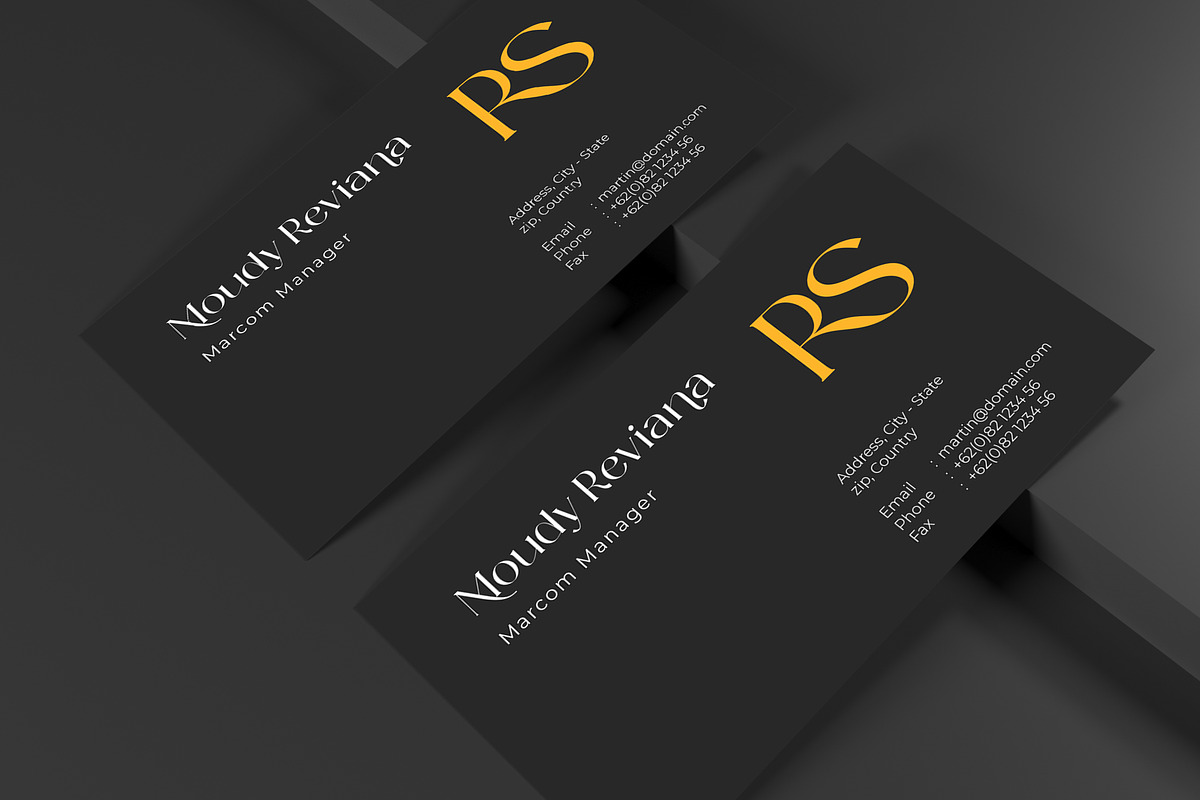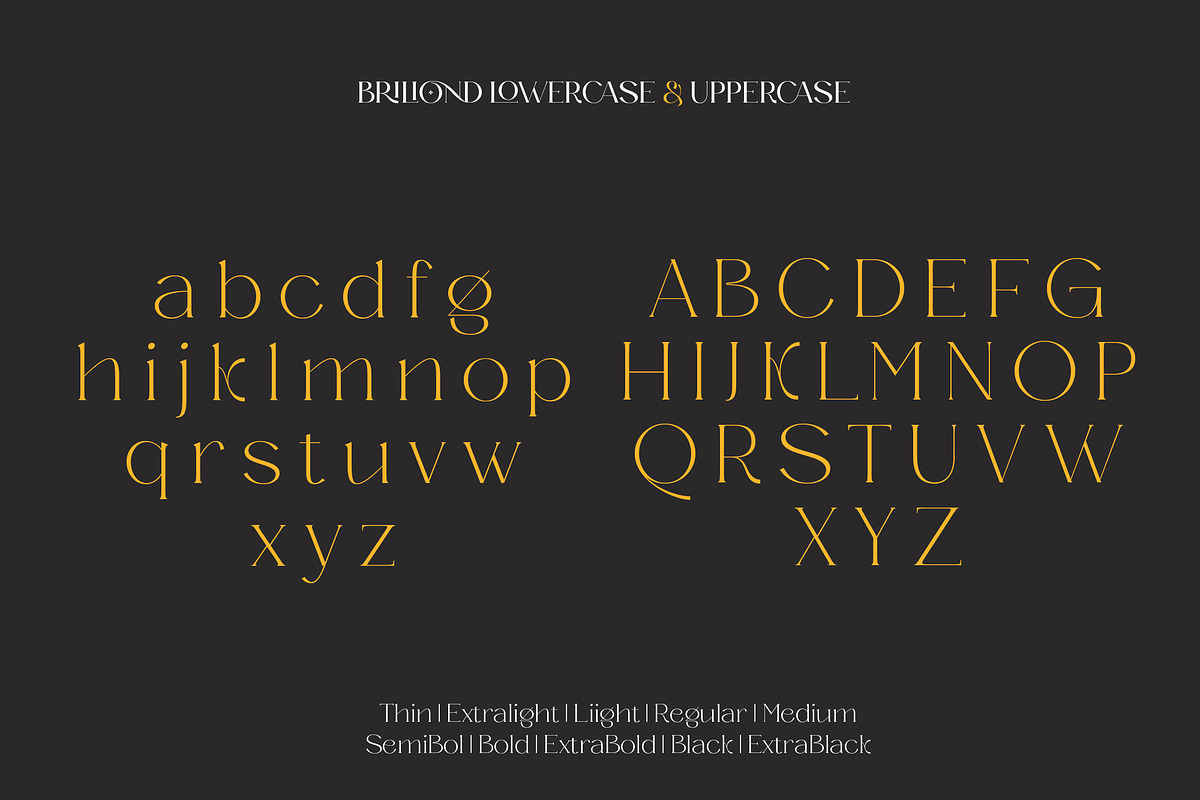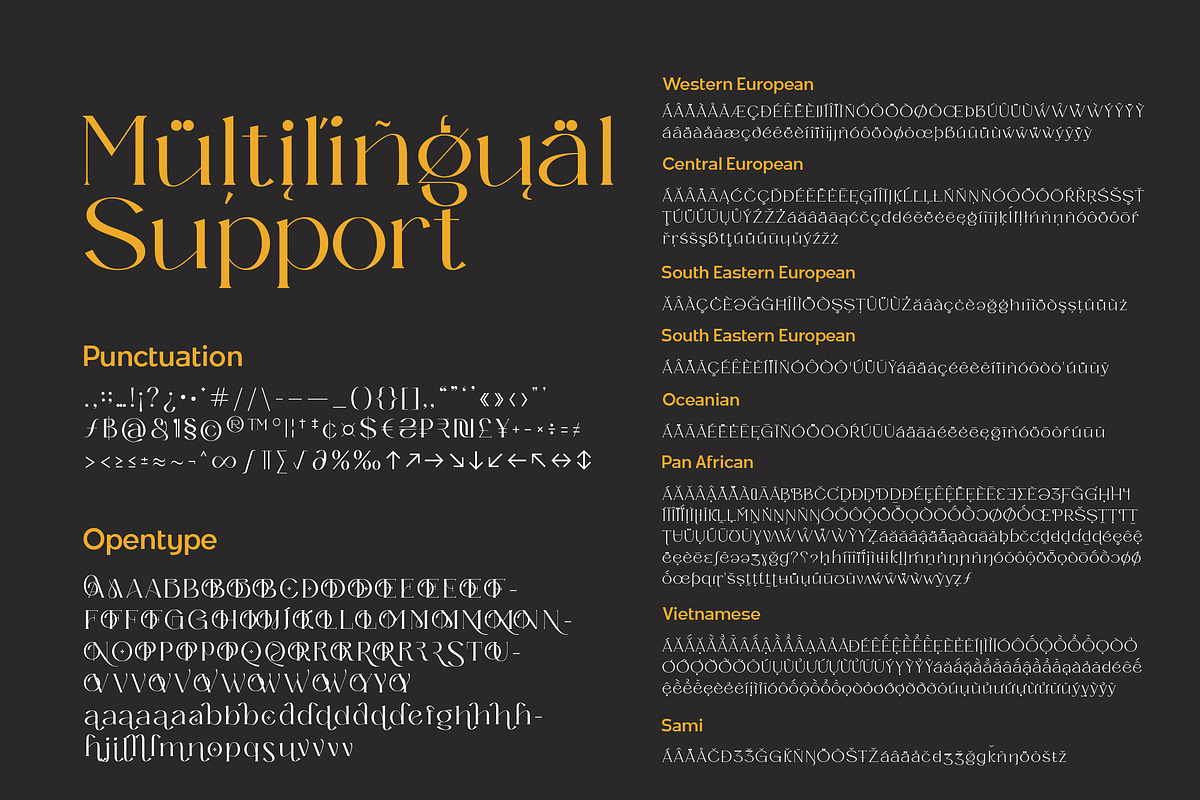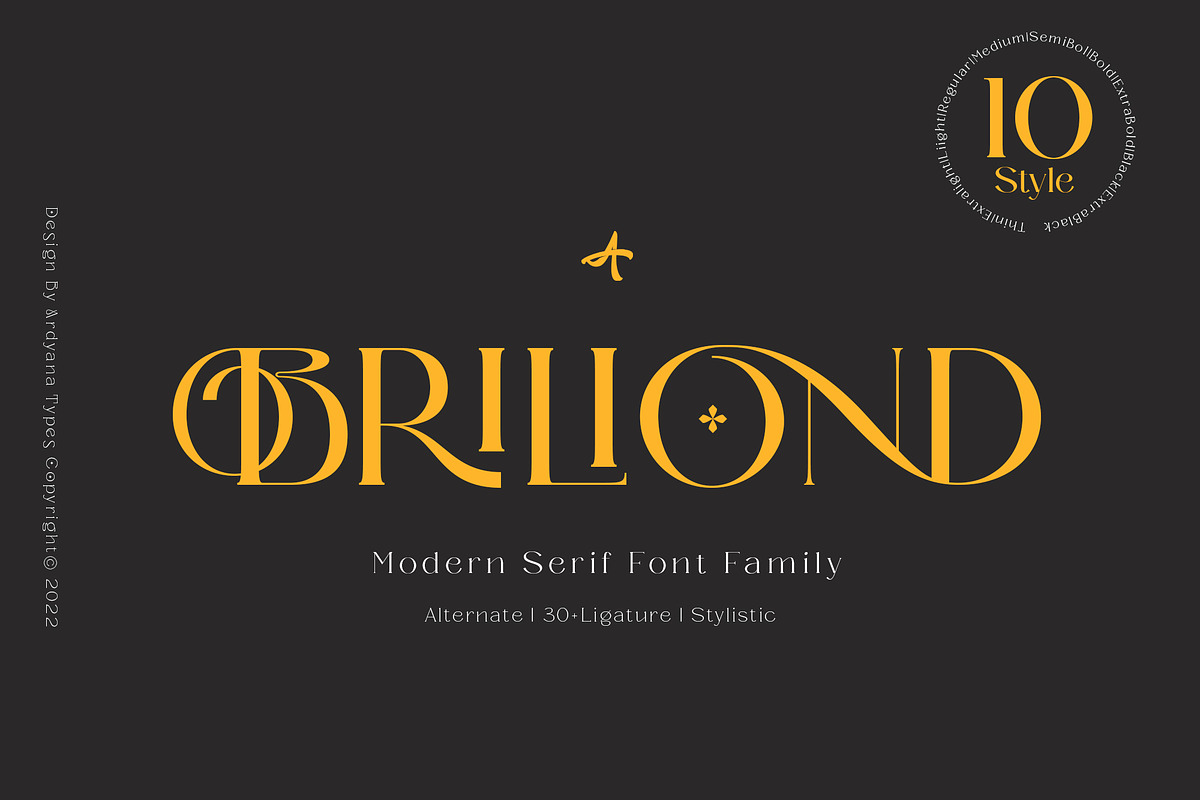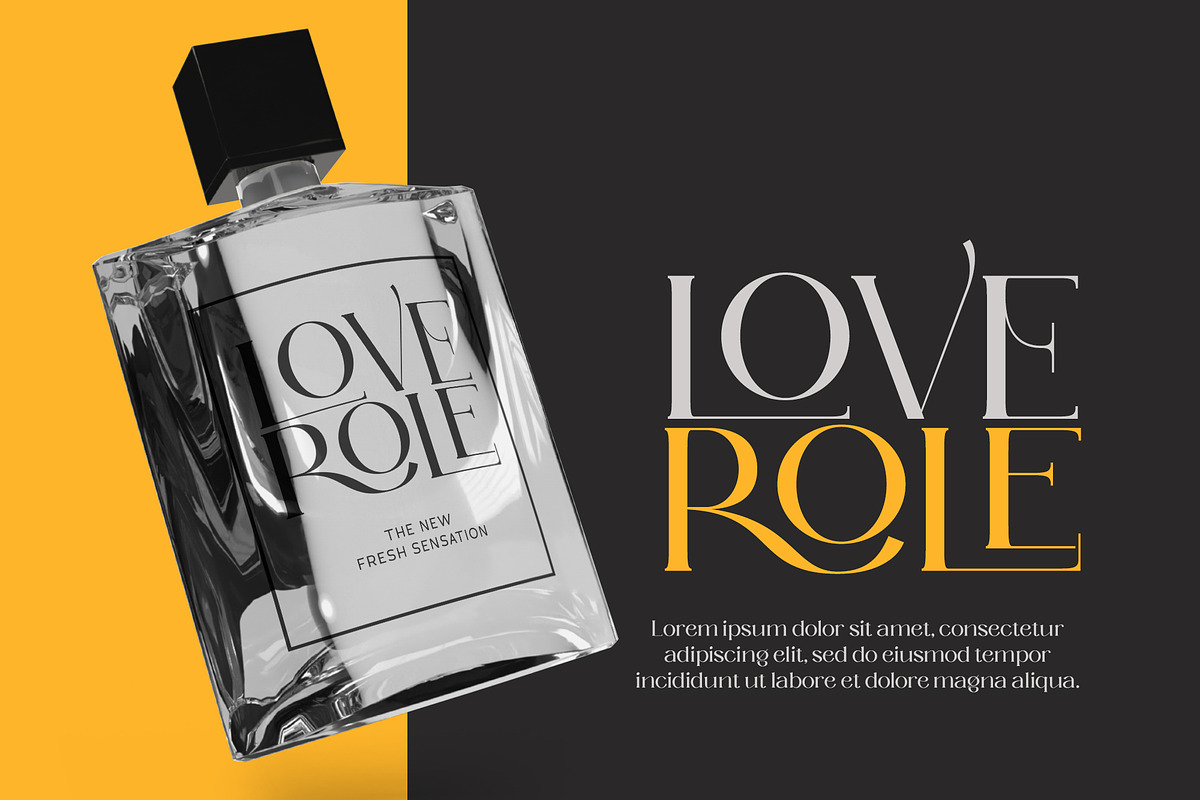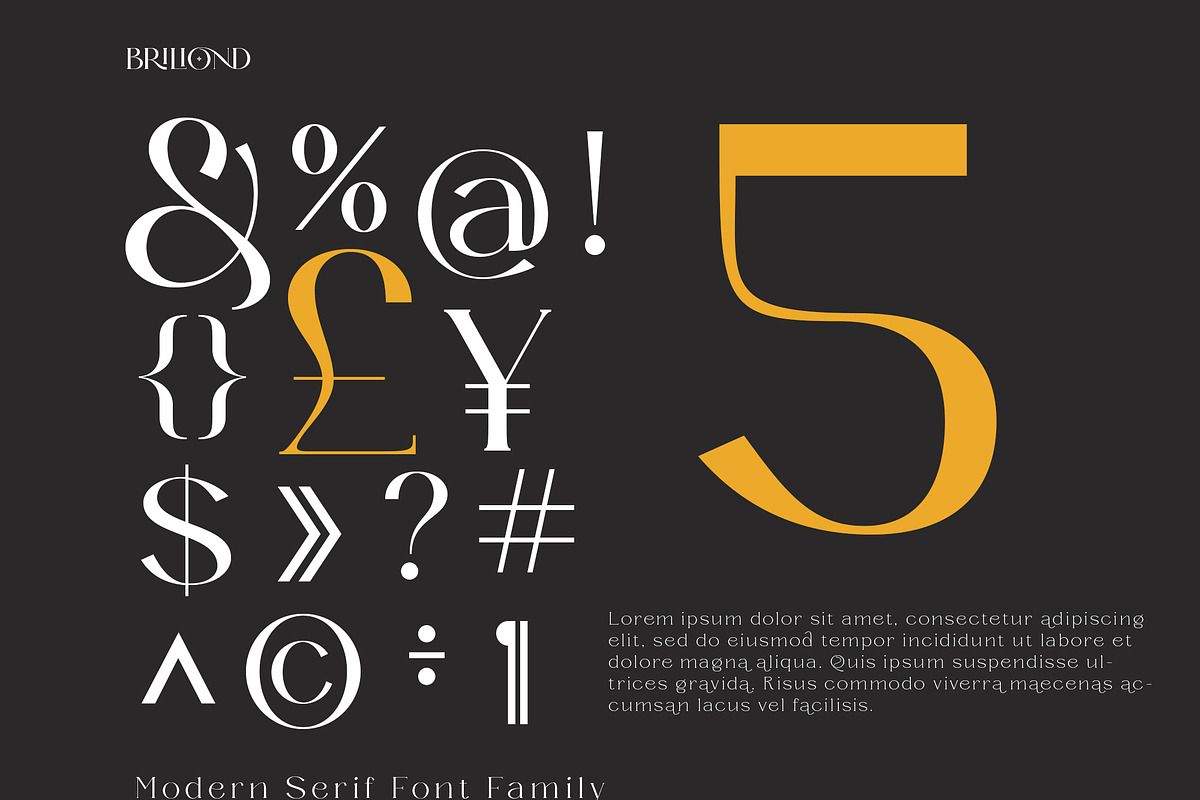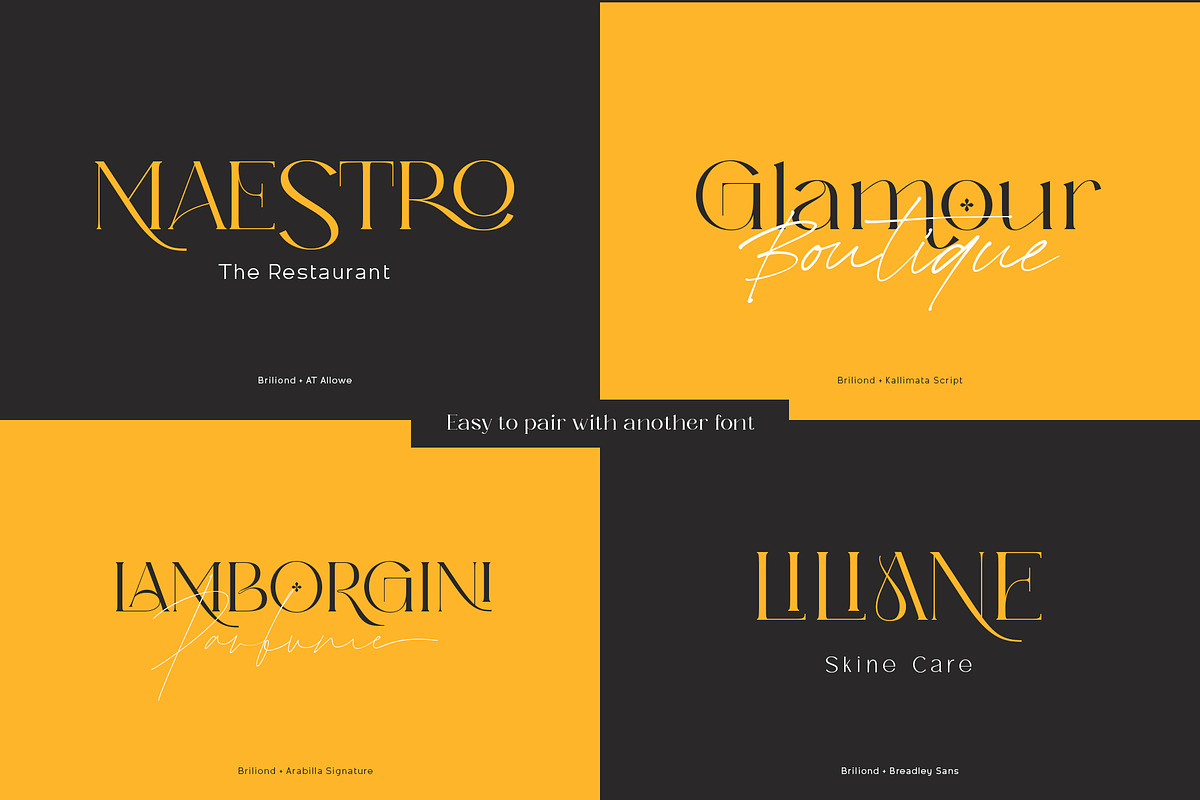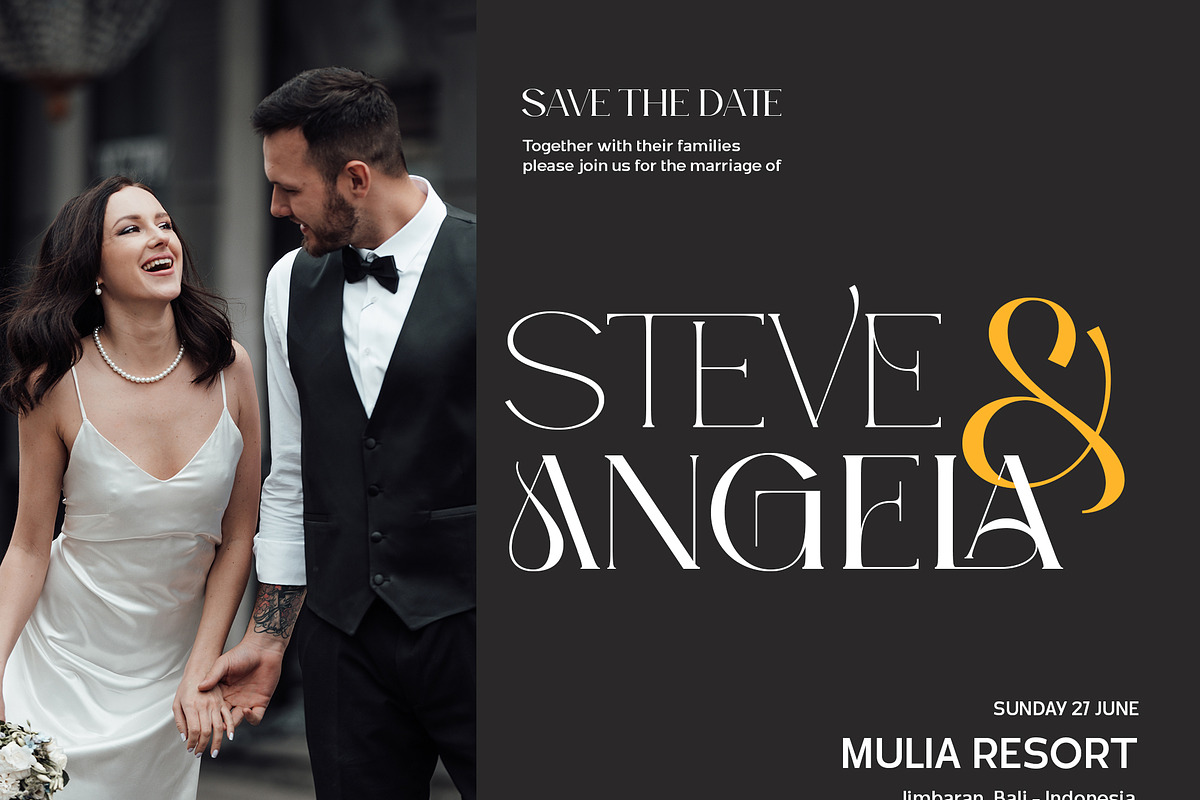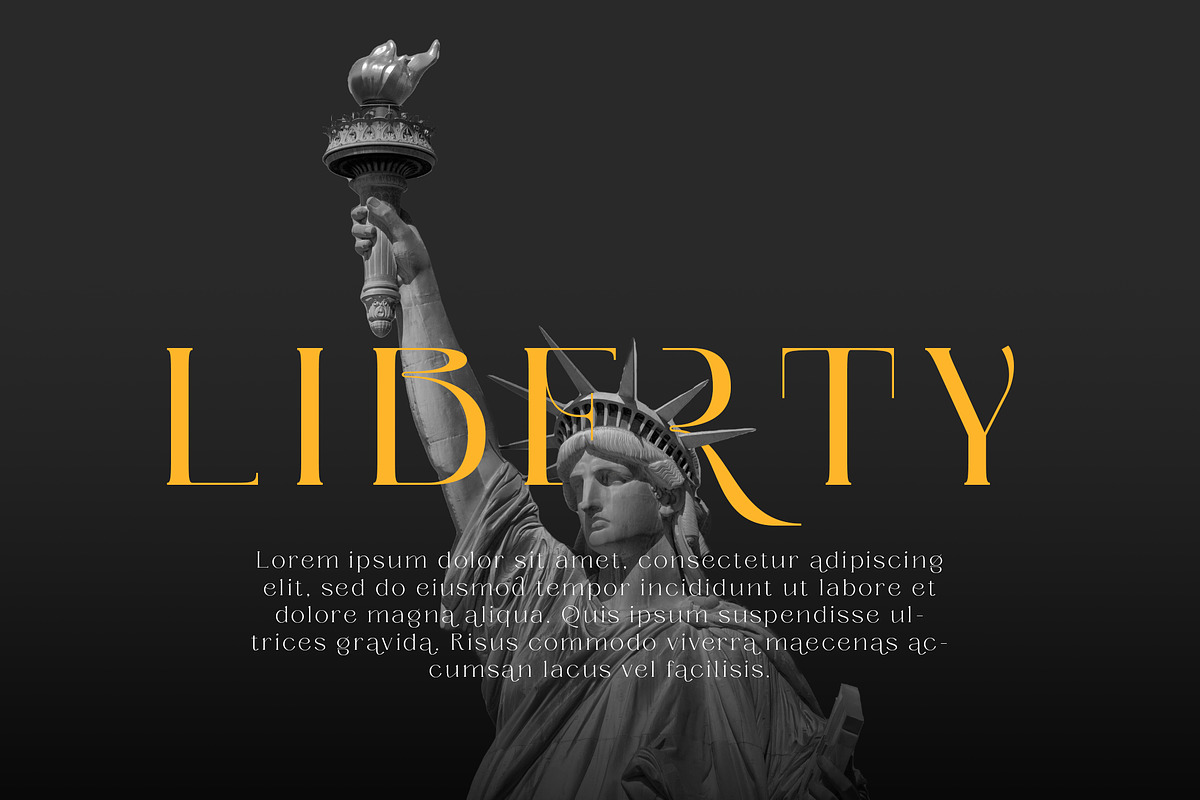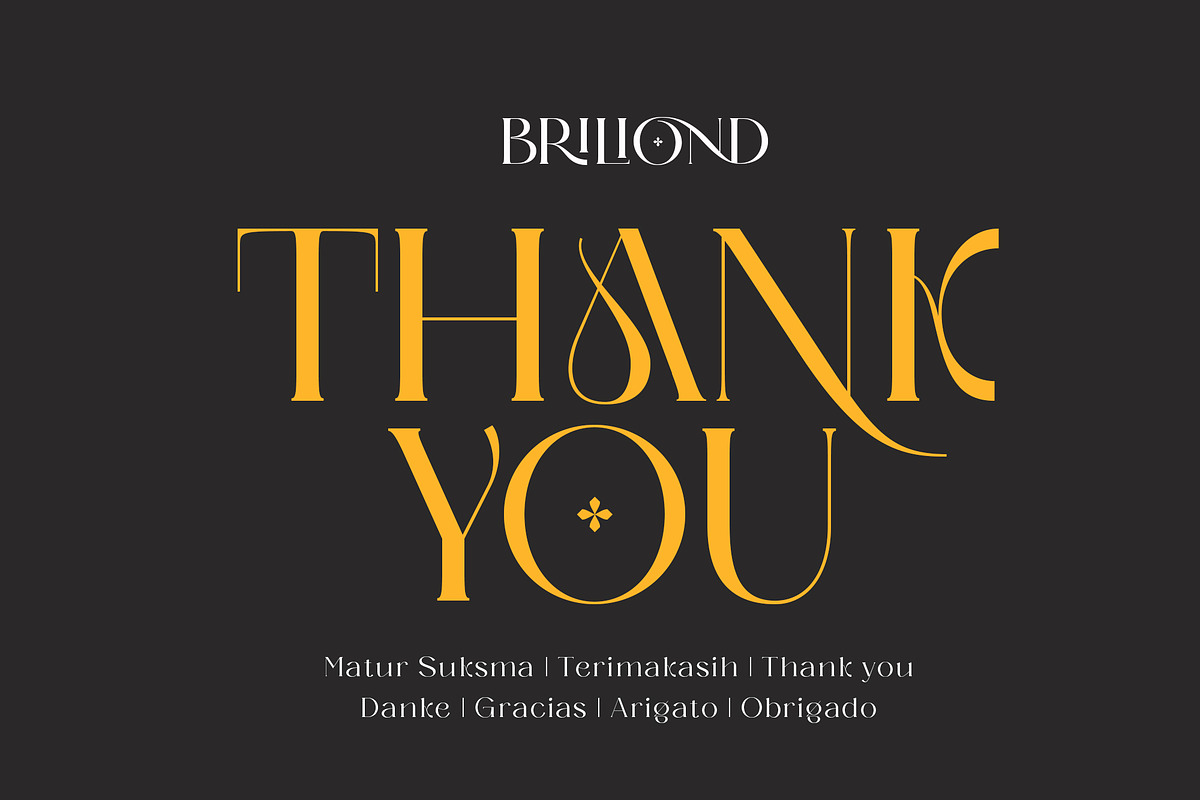
Briliond - Modern Serif
Briliond has an aesthetic style, and the serif-type tagline is modern and elegant. This font is equipped with ten levels of thickness, from thin to black suits your needs. Briliond is also equipped with the latest professional characteristics that can present an elegant and attractive identity for your company or project for business purposes. It goes well with modern serifs, and scripts depicted or stand firm as a title and brand representative for an elegant look.
Briliond also comes with multiple languages, making it easy for any country and language use. It also comes with alternative Ligatures and styles to make your designs more attractive. Briliond is suitable for branding projects and various design purposes such as business cards, name tags, and uniforms as a brand enhancement. Advertisements, posters, invitations, branding, logos, magazines, merchandise, presentations, etc.